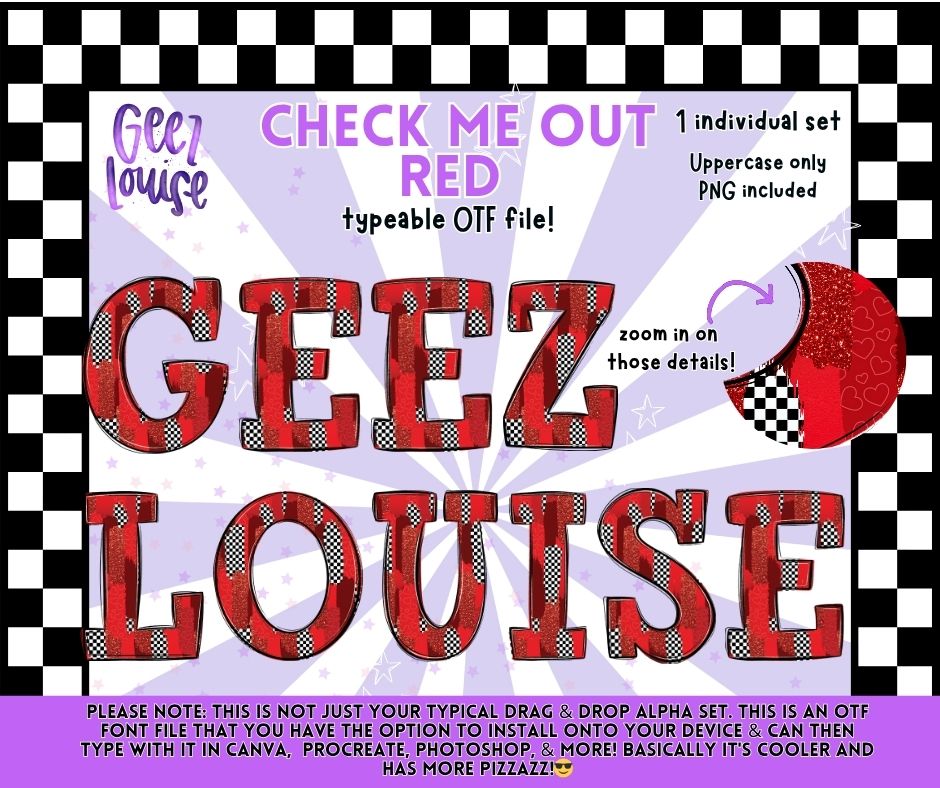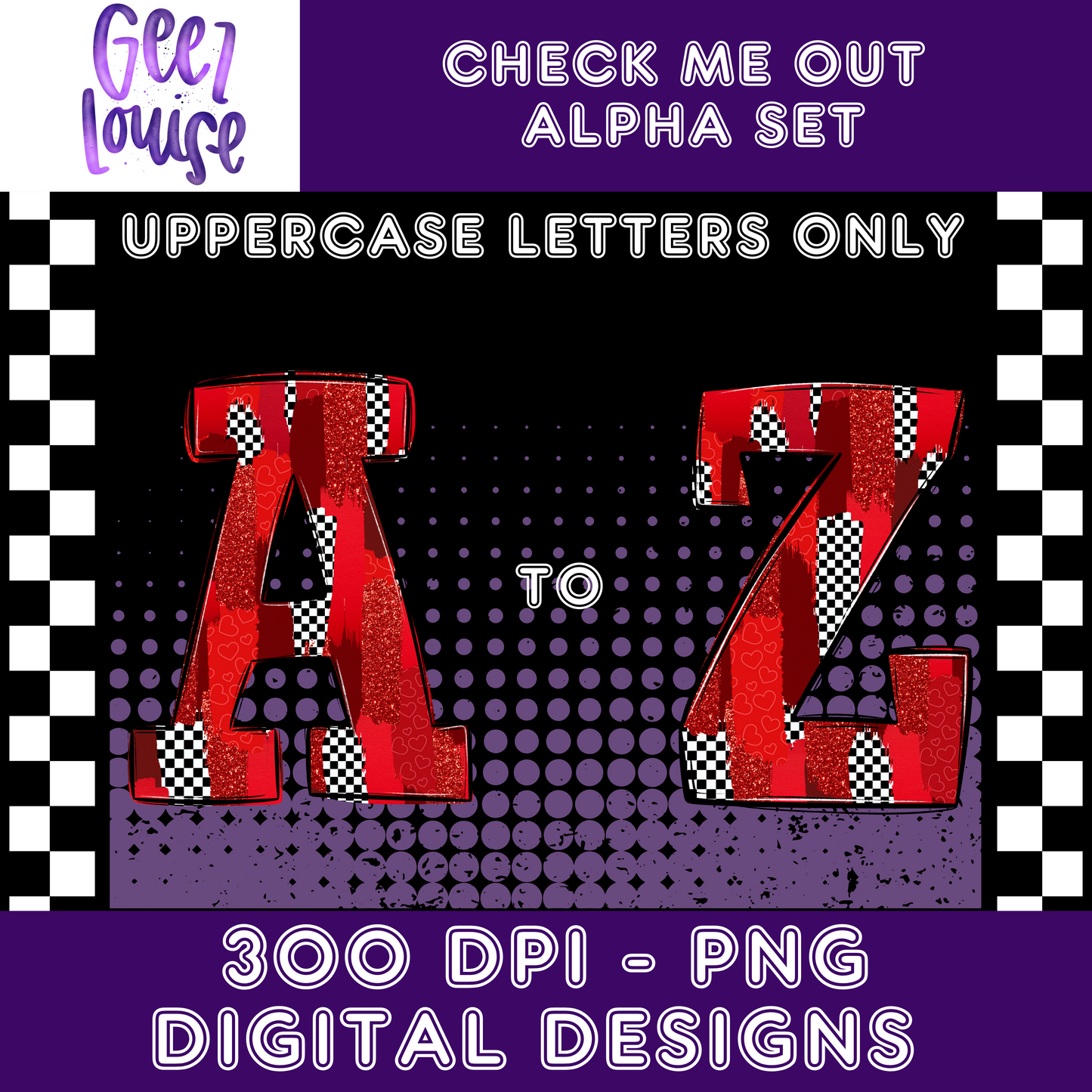
Check Me Out (Red) – Typeable OTF Alpha Set (Uppercase + PNG)
❤️ Bold, flirty, and full of Geezy charm. ❤️
Meet Check Me Out (Red) — a typeable OTF alpha that’s serving checkerboard sass with a pop of glitter and hearts. It’s confident, playful, and just a little dangerous (in the best way).
If your designs have attitude, this font’s your new favorite sidekick.
Why you’ll love it:
Check Me Out brings retro punk vibes with a touch of romance, perfect for Valentine drops, edgy branding, or anytime you’re feeling bold.
❤️ Red glitter & heart accents
🖤 Checkerboard edge detail
✨ Instant Geezy confidence booster